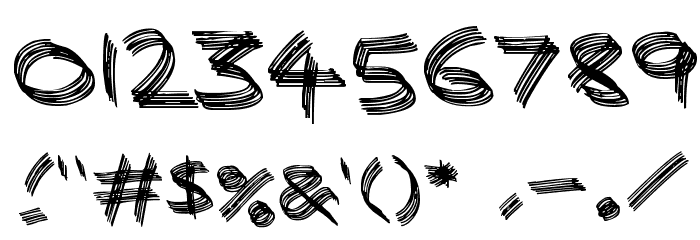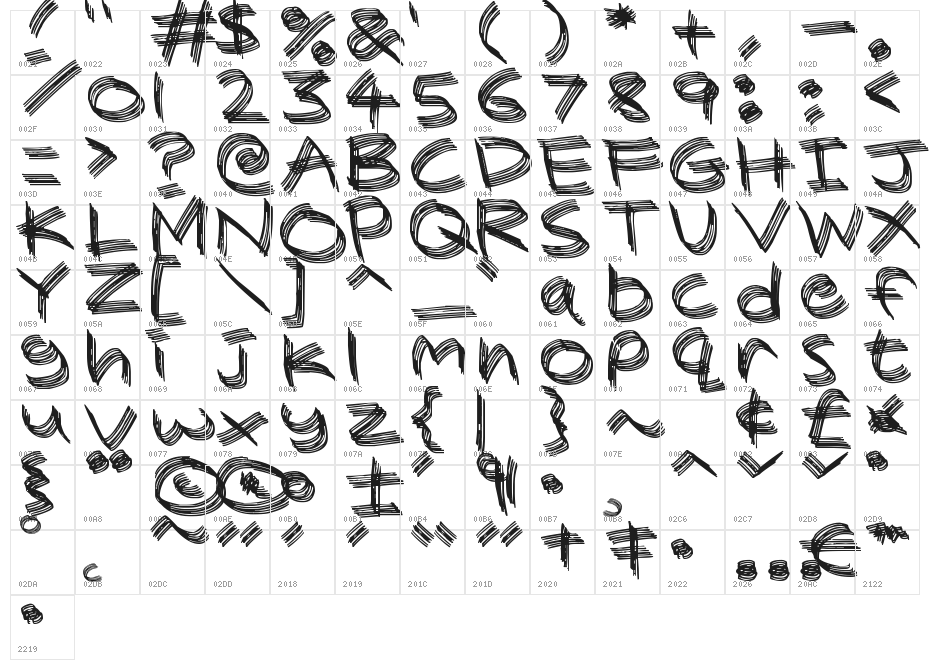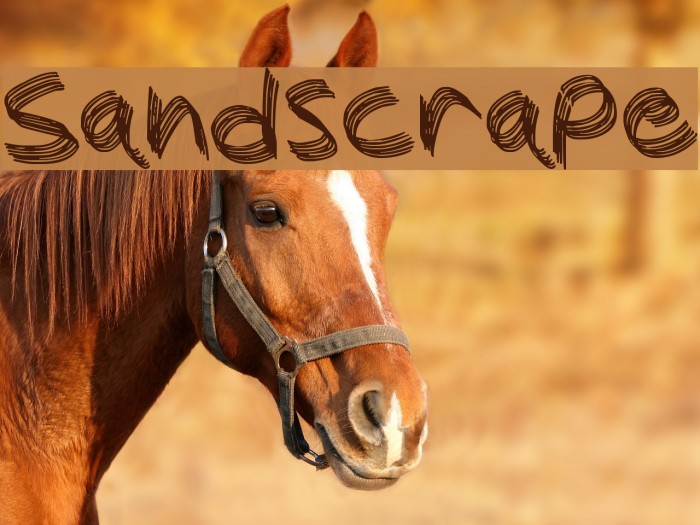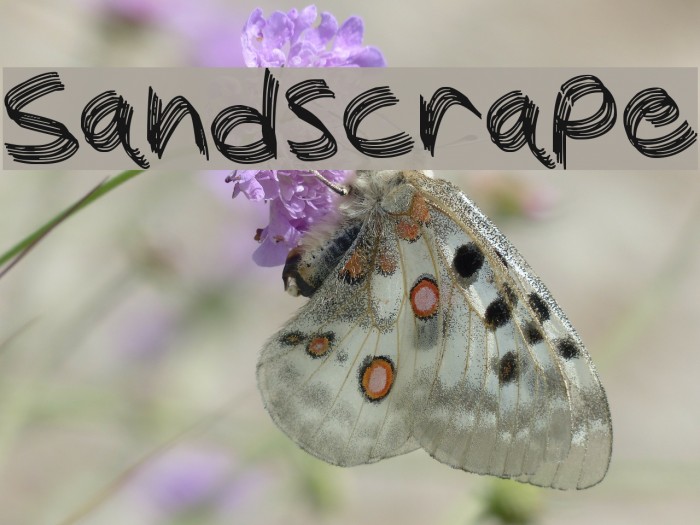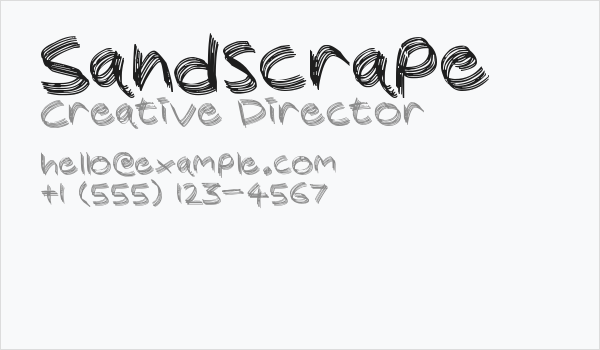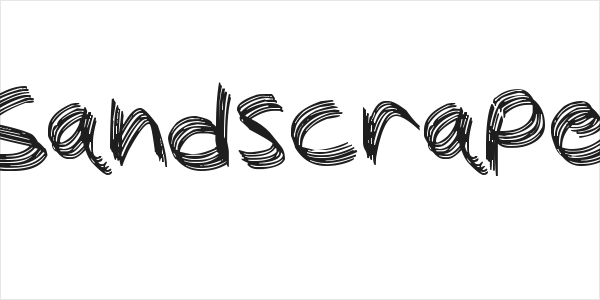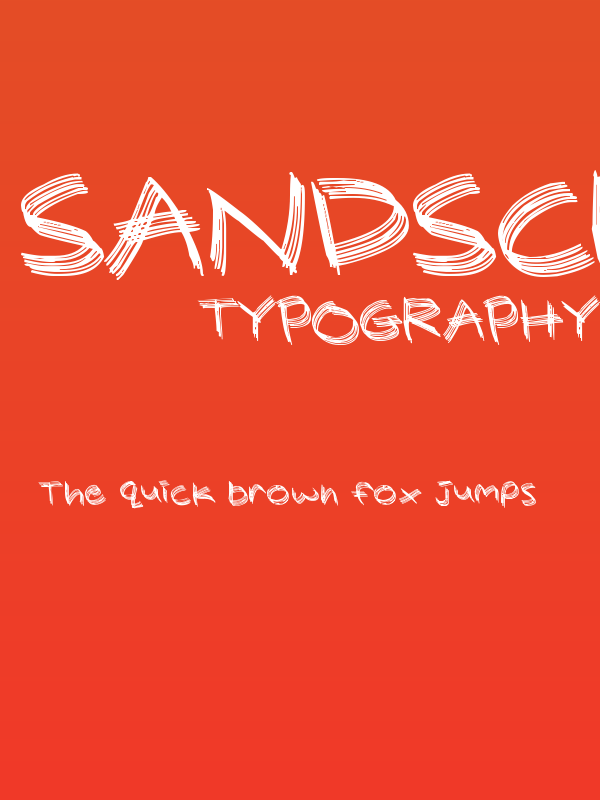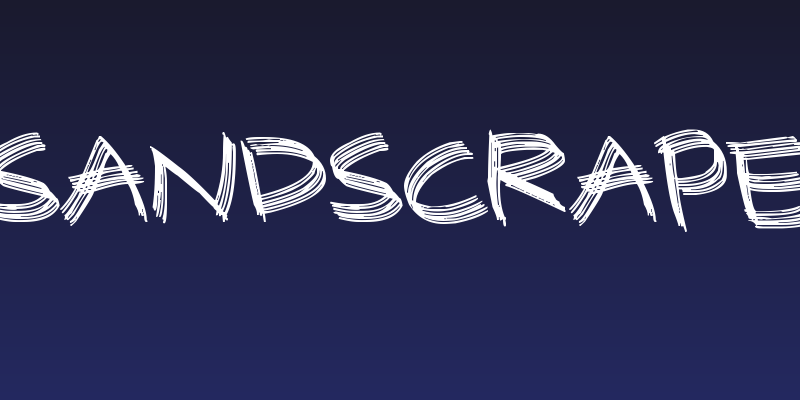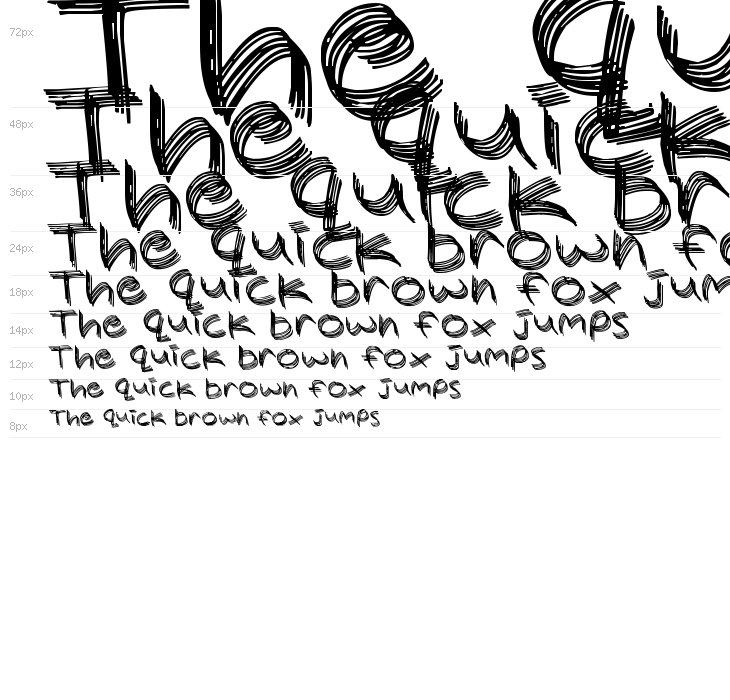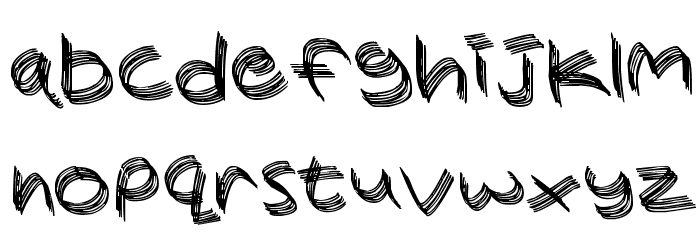
Sandscrape Font
Sandscrape Description
This font features a dynamic and energetic style, characterized by its sketch-like, hand-drawn appearance. Each character is composed of multiple overlapping strokes, giving it a textured and artistic feel. The irregular lines and varying thicknesses contribute to a sense of movement and spontaneity, making it ideal for creative and informal designs. The uppercase and lowercase letters maintain a consistent style, while the numerals and special characters are equally expressive, ensuring a cohesive look across all text elements.
| Proposed Projects | Ideal for artistic projects, creative branding, children's books, posters, and informal invitations. |